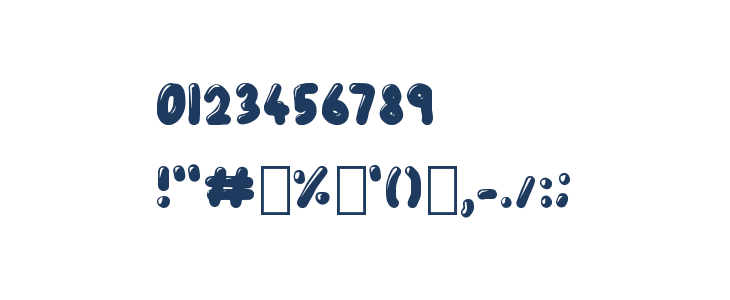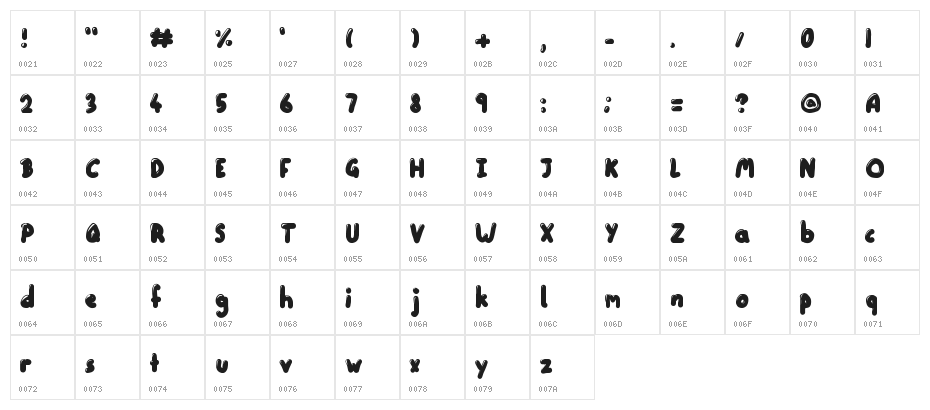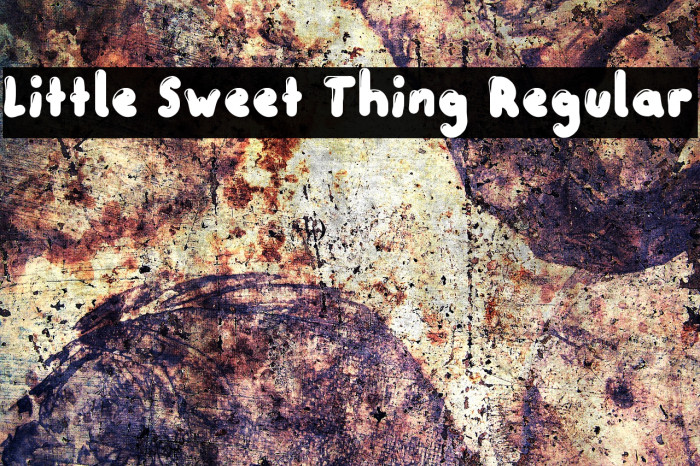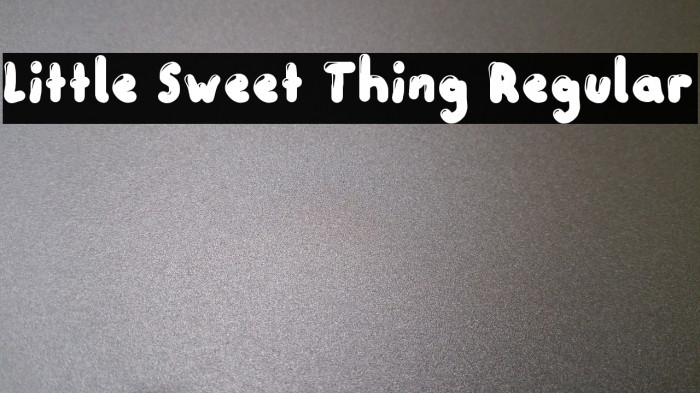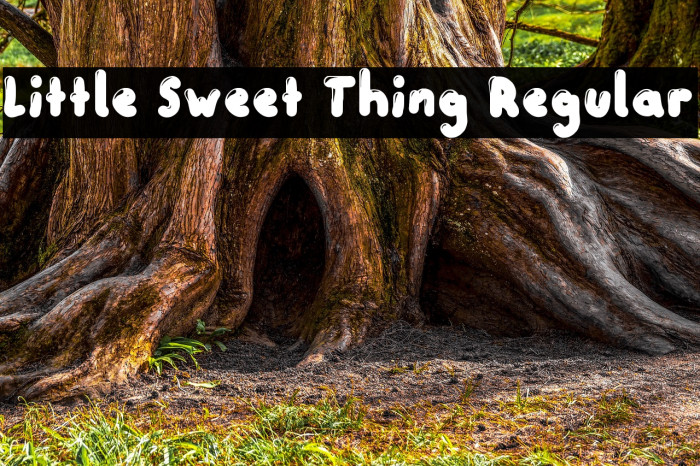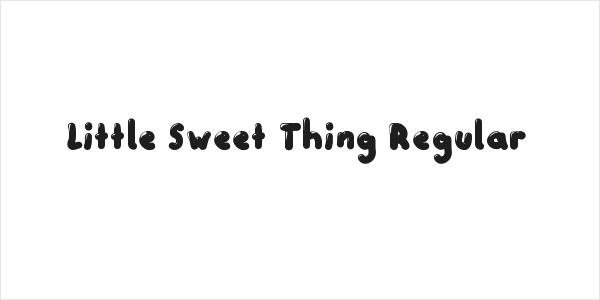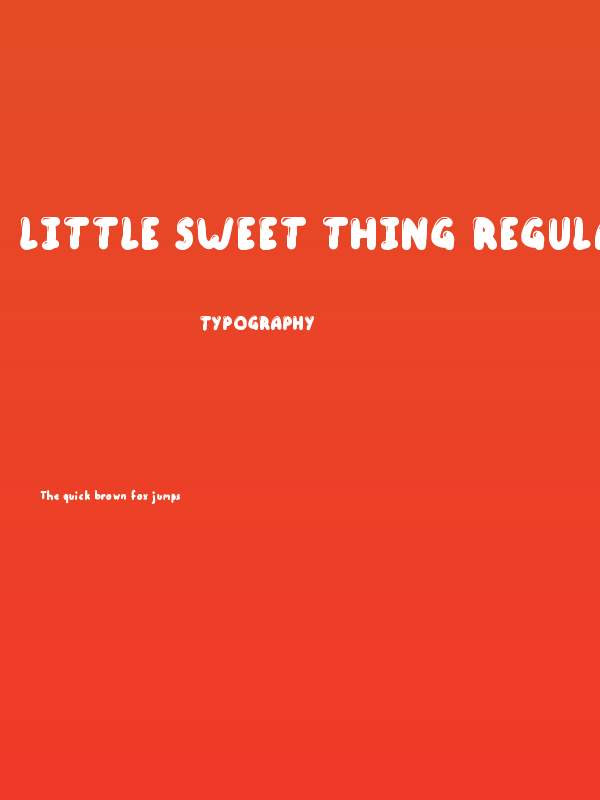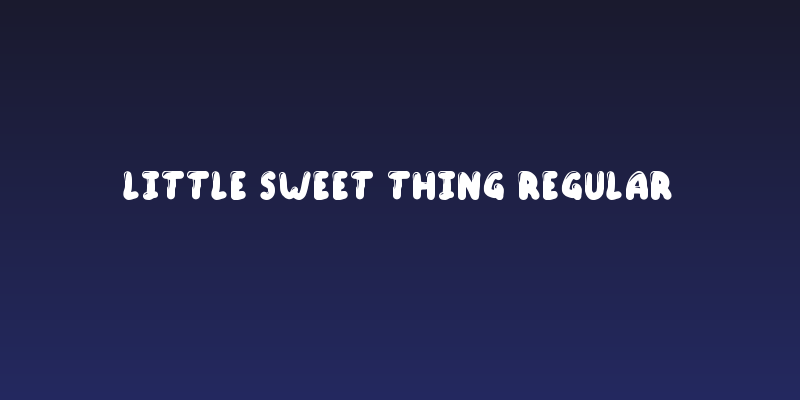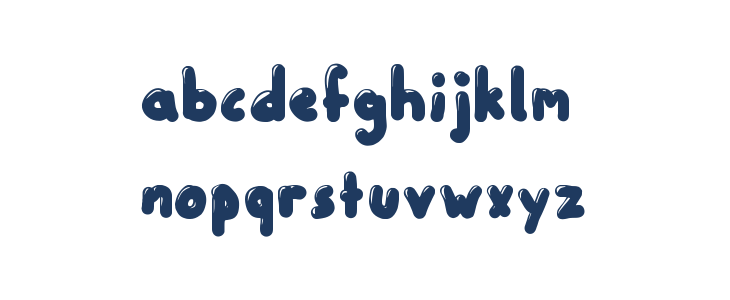
Little Sweet Thing Regular Font
Little Sweet Thing Regular Description
This playful and whimsical font features bold, rounded characters with a bubbly appearance. The letters are thick and have a soft, friendly feel, making them ideal for designs that aim to convey warmth and approachability. The font's strokes are consistent in width, giving it a uniform look, while the rounded edges add a touch of softness. The characters are well-spaced, ensuring readability even at smaller sizes. This font is perfect for projects that require a fun and inviting aesthetic, such as children's books, playful branding, or casual invitations.
Overall StylePlayful
Proposed ProjectsIdeal for children's books, playful branding, casual invitations, and fun posters.